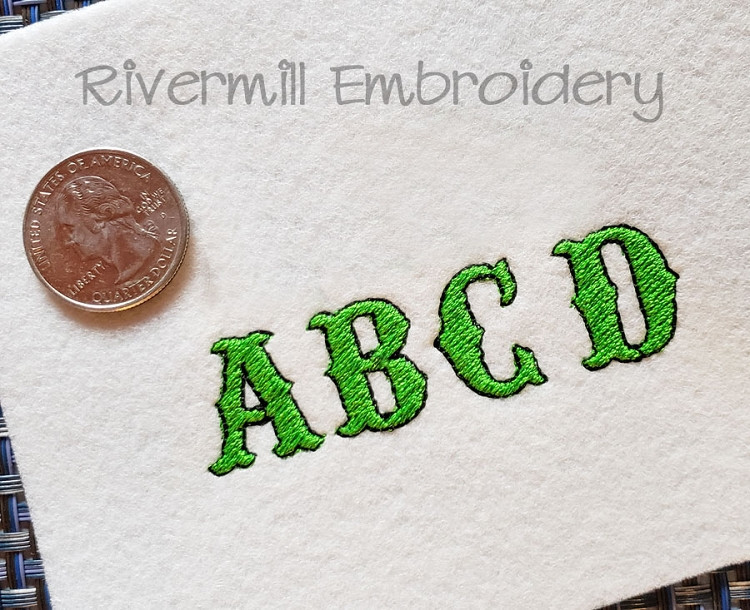
Small Carnival Machine Embroidery Font Alphabet
This set comes with upper case letters in 3/4" size.
Numbers 0-9 are included. Each letter has a triple bean stitch outline in a different color than the filled area.